My first commercial fonts
OLD WORKS
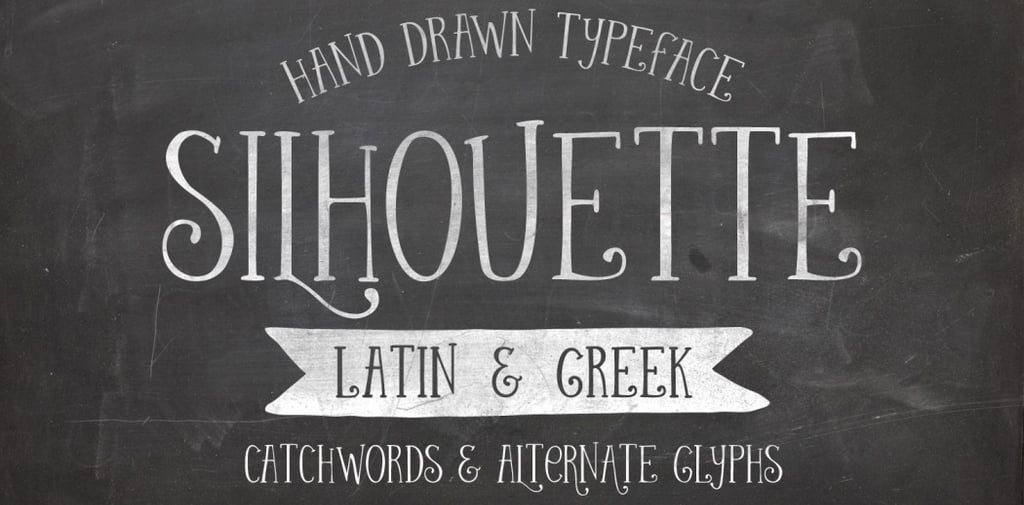
Silhouette and Marpesia were the two first fonts that I designed, back in 2015. They were both hand drawn, scanned and digitized.
Silhouette was inspired by the vintage hand lettering. Marpesia was my first attempt to modern calligraphy, designed with Gillot 170 nib.